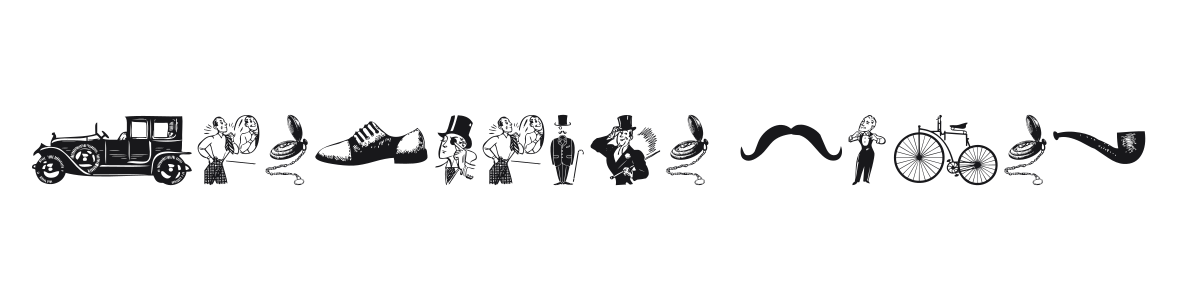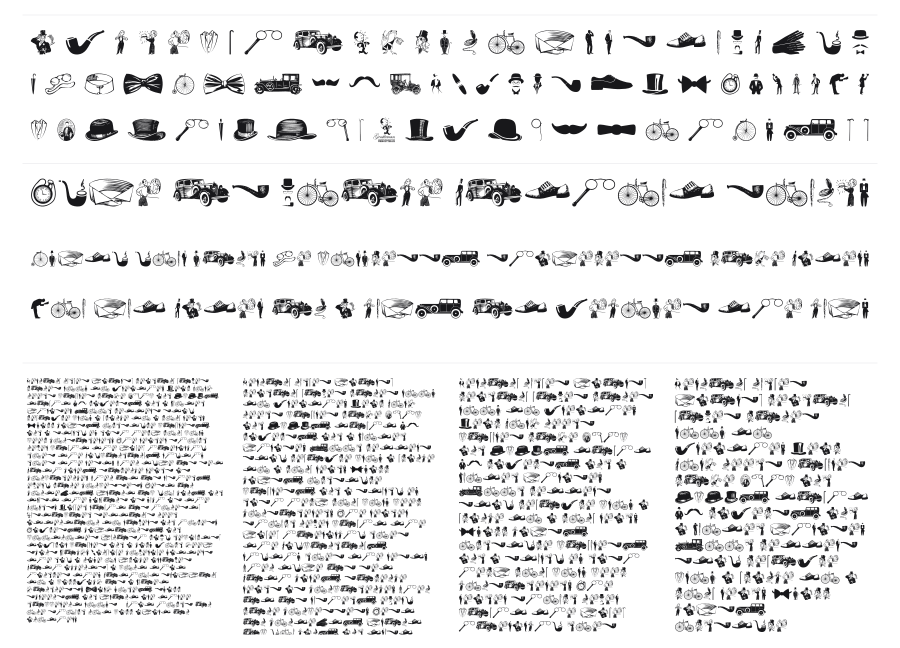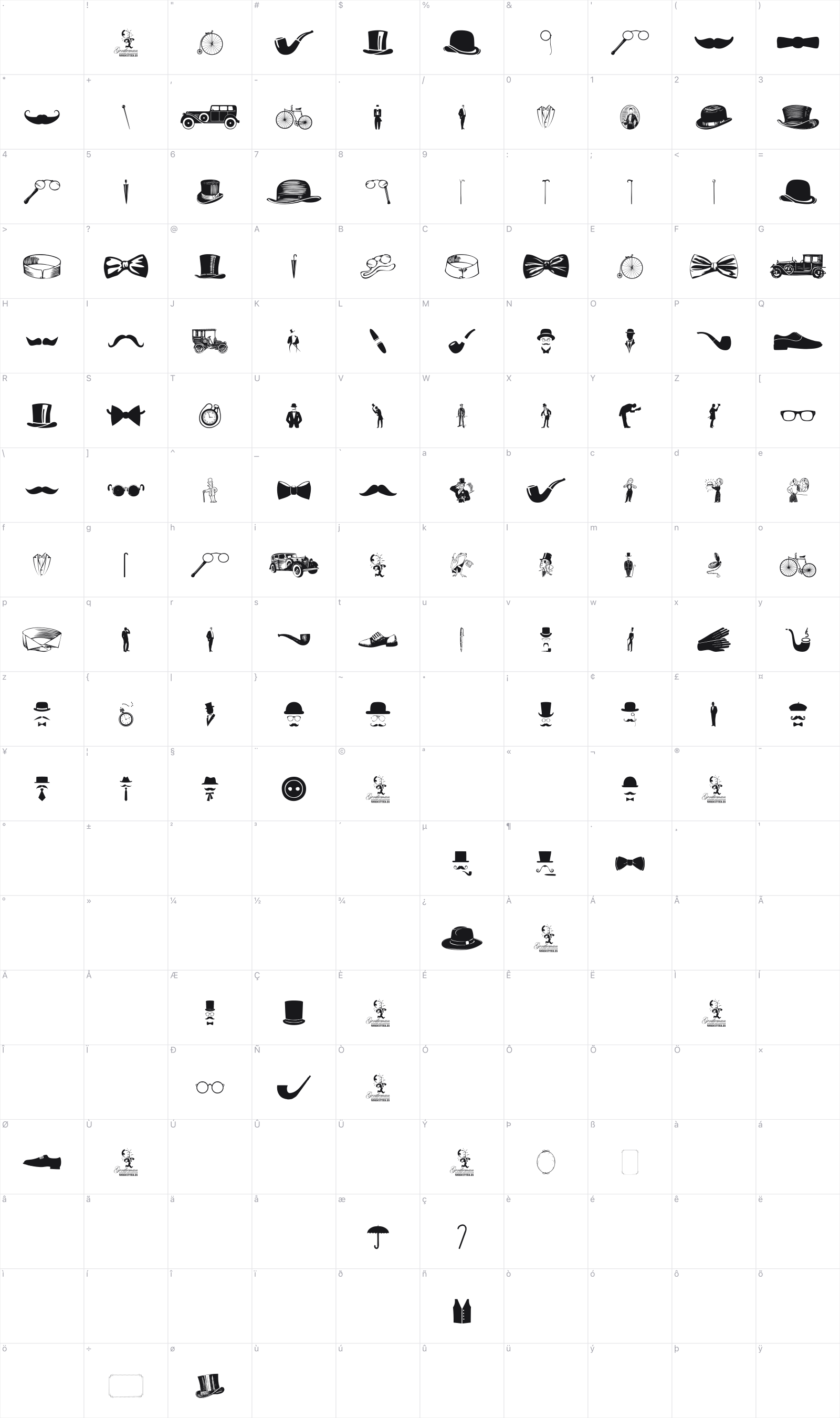
Gentleman Icons
Gentleman Icons is a dingbat font by Woodcutter packed with Victorian-era gentleman imagery: monocles, pipes, top hats, walking canes, penny-farthings, and vintage automobiles. Each glyph is a crisp black silhouette with engraving-style detail that feels lifted from a 19th-century illustrated catalog. Useful for branding projects that need instant old-world masculine charm.